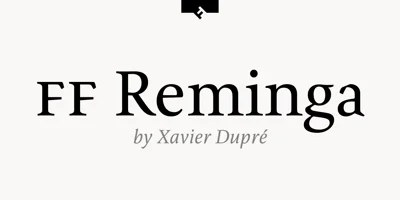
FF Reminga Font
FF Reminga Font is an exceptional choice for projects that demand a unique blend of elegance, readability, and a subtly humanist touch. It's perfectly suited for sophisticated editorial design, distinctive branding, elegant invitations, high-quality digital publications, and any application where you need a versatile serif typeface that feels both classic and contemporary. Imagine it gracing the pages of a well-crafted novel, providing a refined voice for a luxury brand's website, or adding an air of intellectual charm to an online magazine. Its carefully balanced proportions and thoughtful details ensure your message is conveyed with both clarity and an undeniable sense of refined artistry.
What makes FF Reminga Font so exciting is its masterful synthesis of traditional serif characteristics with a fresh, approachable feel. It offers excellent legibility for long-form text while maintaining a distinctive personality that elevates it beyond generic options. This font isn't just about conveying information; it’s about shaping the reading experience, making it more engaging, comfortable, and aesthetically pleasing. It’s the ideal tool for designers who want to create visuals that are both deeply readable and exquisitely styled, perfect for an audience that appreciates both substance and sophisticated form.
The FF Reminga Font family typically offers a comprehensive range of weights and styles to provide maximum design flexibility. You can expect to find a broad spectrum from a delicate Light or Thin, through a versatile Regular, to a commanding Bold or Black weight, often accompanied by corresponding italic versions. This extensive range allows for sophisticated typographic hierarchies and ensures that whether you need subtle annotations or prominent headlines, the FF Reminga Font provides the foundational versatility to achieve a cohesive, elegant, and highly professional design across all your platforms.